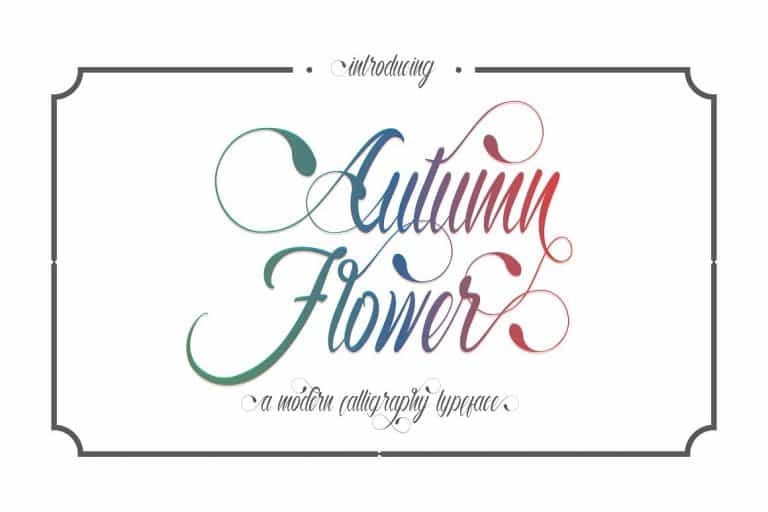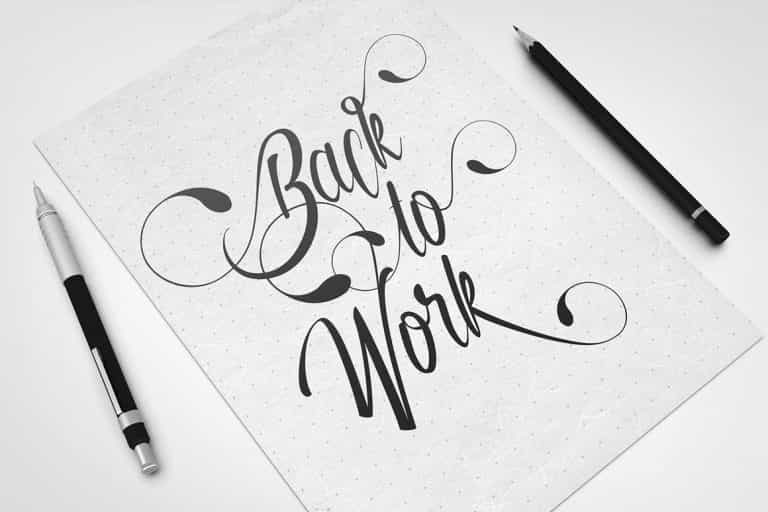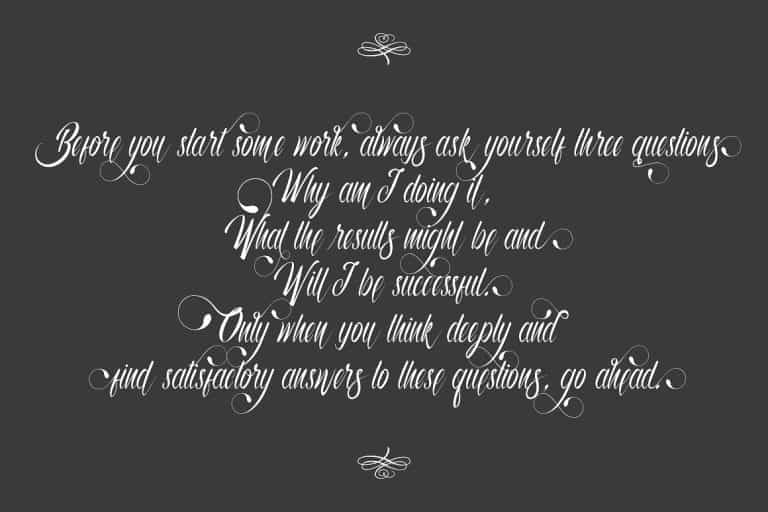
Discover Autumn Flower Script Font, part of the Calligraphy collection—a versatile and unique font perfect for adding a personal touch to your projects. Download it for free and enjoy crafting designs with style, from invitations to social media posts. This font is available exclusively for personal use, giving you the freedom to create without limits. Unlock your creativity with Autumn Flower Script Font today!
A modern Calligraphy Typeface. Introducing Autumn Flower Font! Autumn Flower created and posted by thirtypath. Autumn Flower – A classy and legible font.